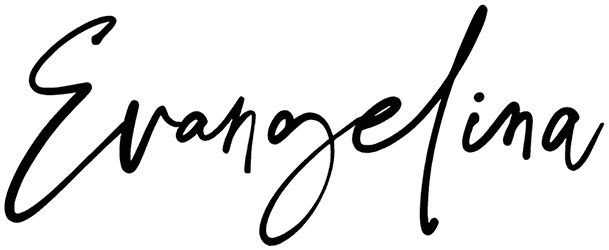
Evangelina Font
Evangelina has many twists and natural movements that can make your design different and attract the attention of the audience. Adding this handwritten font to the writings will reduce their readability a bit, but in the end, it will create a very beautiful design of your mental ideas in which a human spirit has flown.
Therefore, you can use the bold concept hidden in this signature font for tattoos, diary covers, and friendly letter writings.